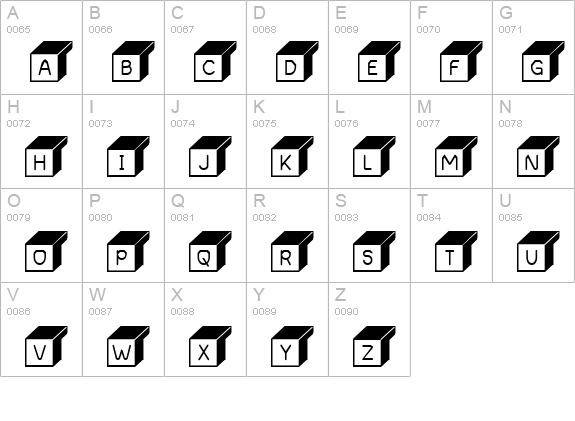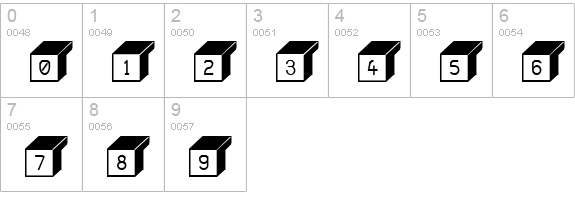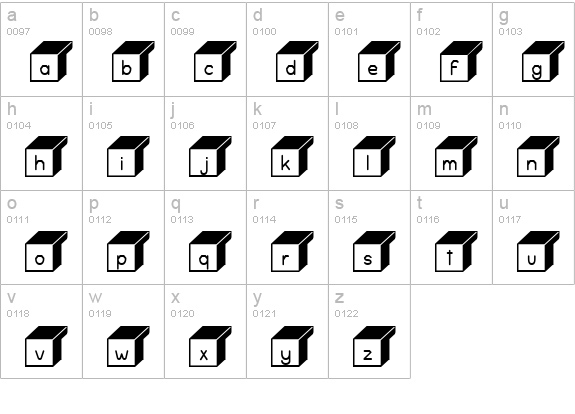
Boxing Brophius Font Details
Boxing Brophius font is a bold and dynamic typeface that exudes strength and energy, making it perfect for projects that require a powerful and impactful aesthetic. With its sharp edges and distinctive style, this font captures the essence of competitive sports and athleticism. Whether you are designing a poster for a boxing match or creating branding for a fitness center, Boxing Brophius font will help you make a bold statement. The best part is that Boxing Brophius font is completely free to download at FontsMarket.com. This means you can easily access this striking font and use it in your projects without any cost. Don't miss out on the opportunity to add this versatile and eye-catching font to your design arsenal. Download Boxing Brophius font today and unleash its power in your creative endeavors.